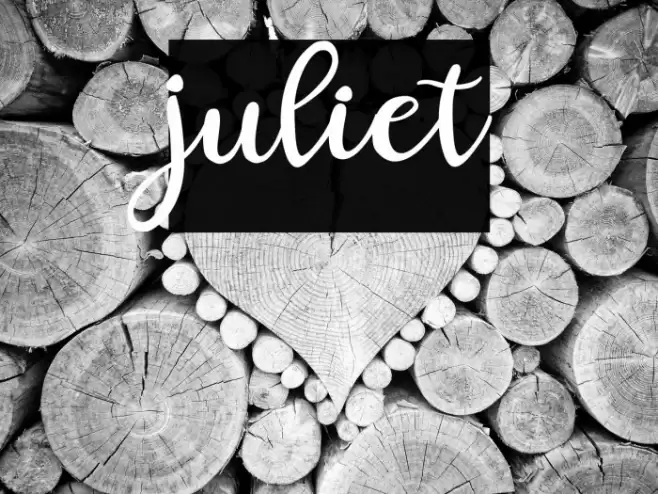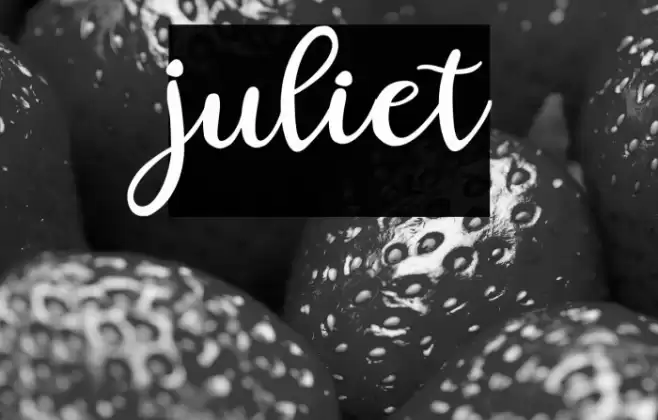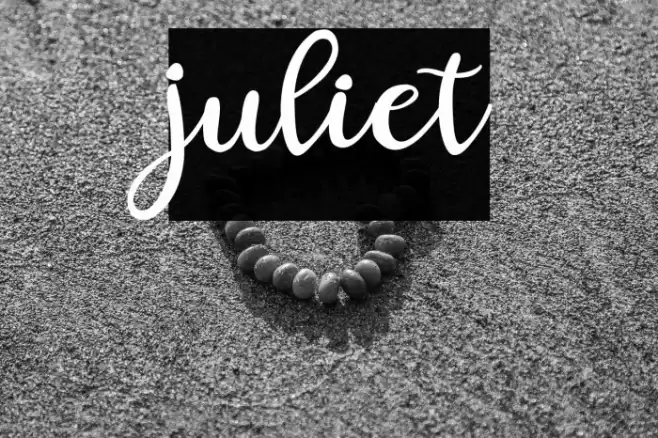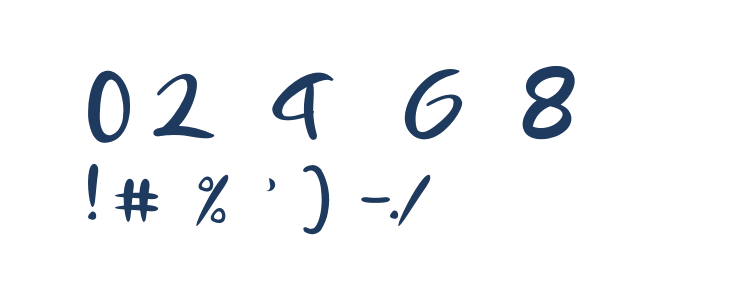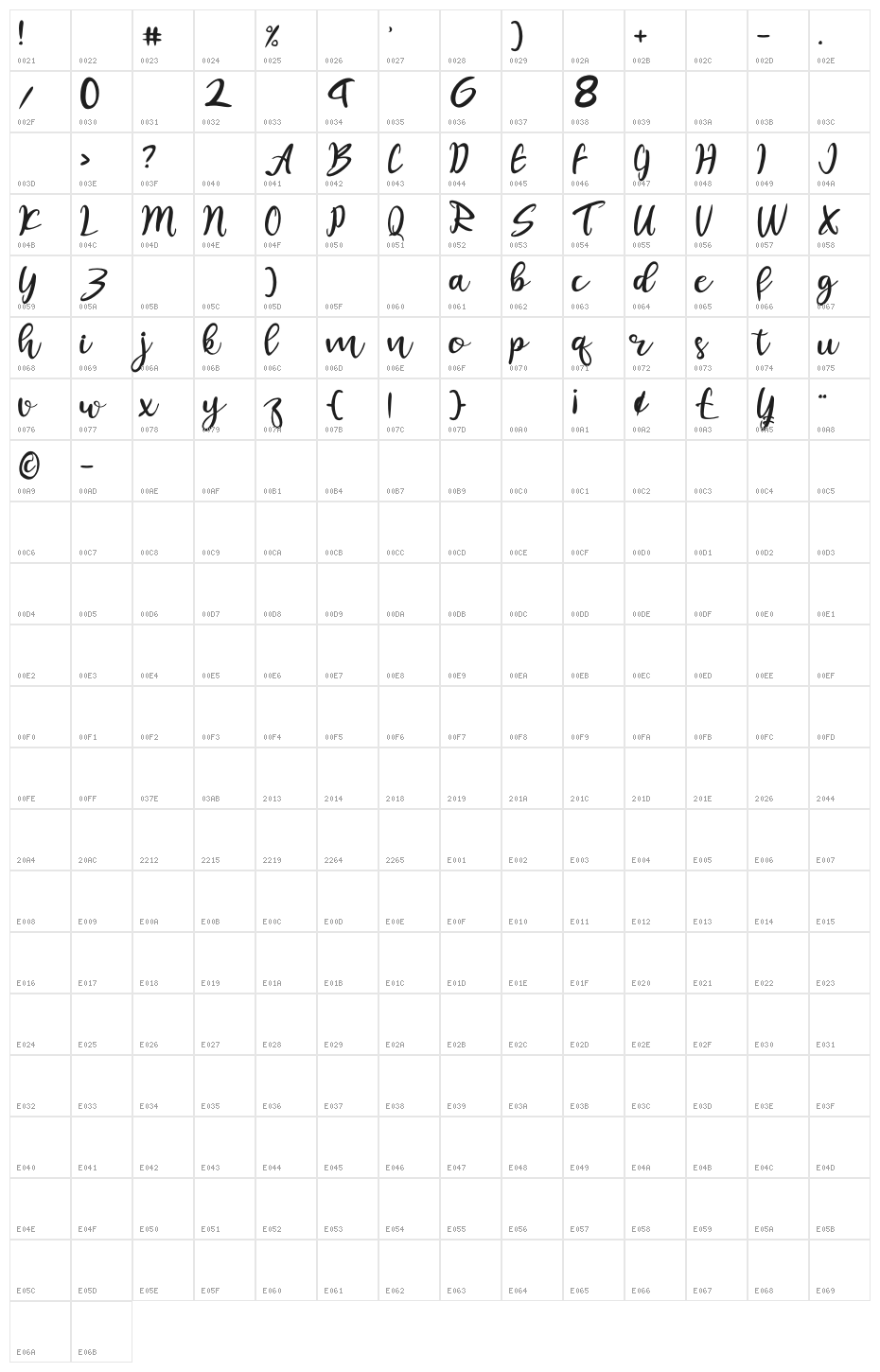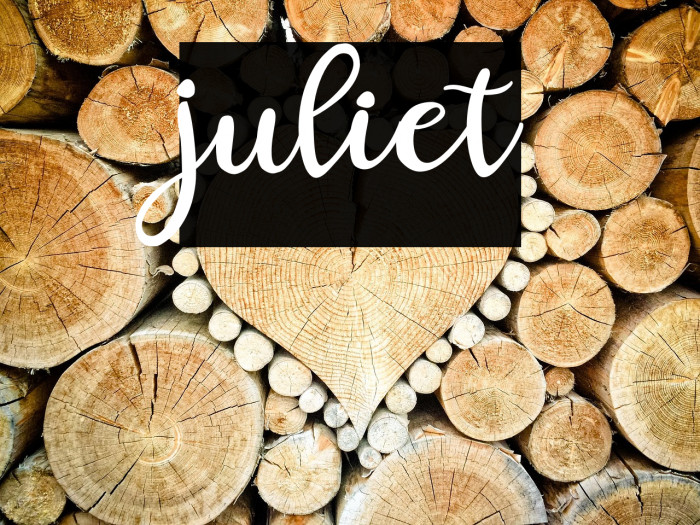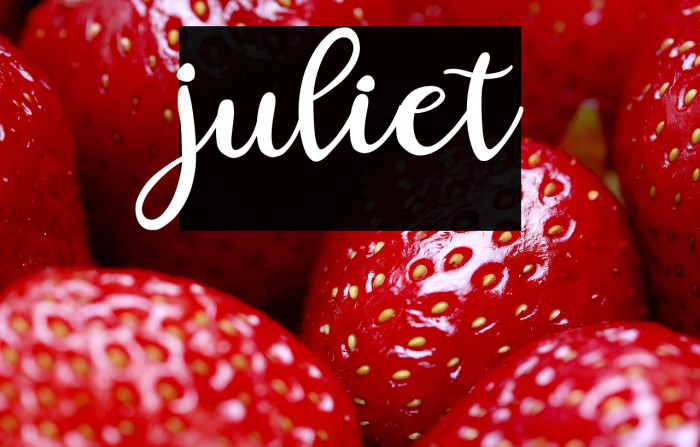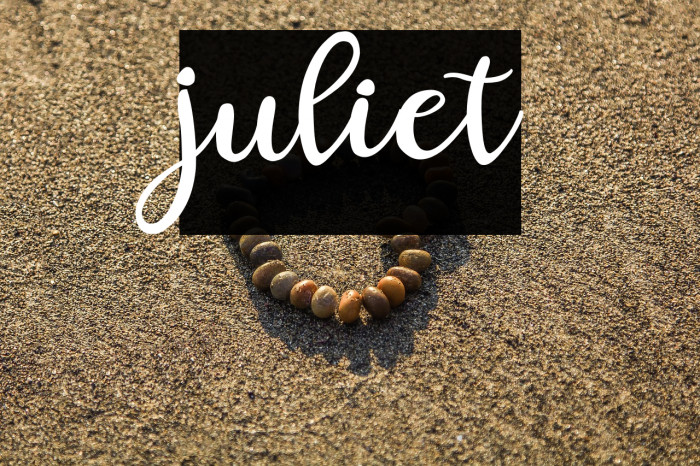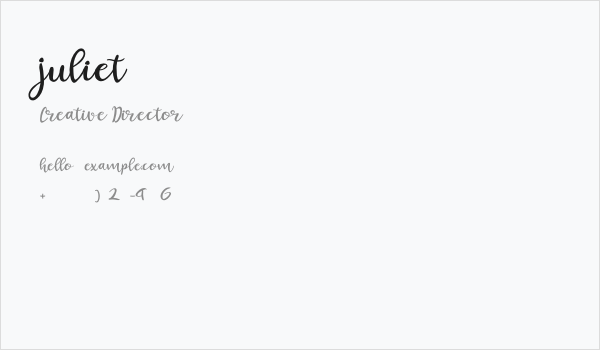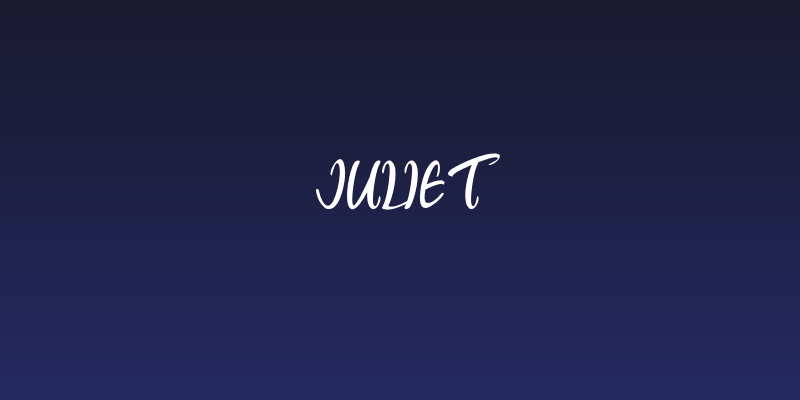
juliet Font
juliet Description
This font features a lively and expressive script style, characterized by its fluid, cursive strokes and a playful, handwritten appearance. The uppercase letters are bold and dynamic, with a slight slant that adds to the energetic feel. The lowercase letters maintain a consistent flow, with loops and curves that enhance the overall aesthetic. Numbers and special characters are designed to match the whimsical nature of the alphabet, making the font versatile for various creative applications. The strokes are moderately thick, providing good readability while maintaining an artistic flair.
A lively, expressive script font with fluid, cursive strokes from Uncategorized fonts.
- Font: juliet
- Proposed Projects: Ideal for wedding invitations, greeting cards, branding, and social media graphics.
- Use Case: Logos, Headlines, Invitations